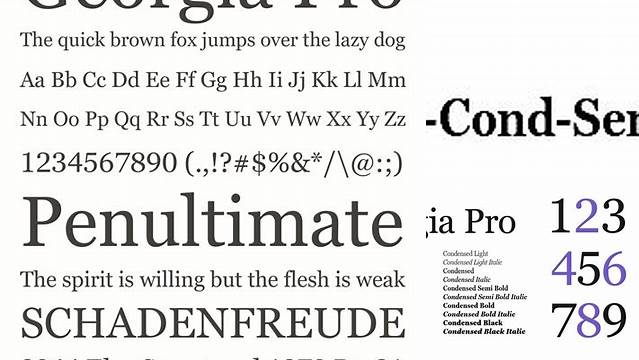
Georgia Pro Semibold Font: An Overview
Alright, let's kick things off with a quick rundown of Georgia Pro Semibold. This font is a variation of the classic Georgia typeface, known for its readability and elegance. Semibold, as the name suggests, is a bolder weight than the regular Georgia, making it ideal for headings, subheadings, and any text that needs to grab attention. Think of it as the slightly more assertive sibling of the regular Georgia. It maintains the same characteristics that make Georgia a beloved font: clean lines, excellent legibility, and a timeless aesthetic. Georgia Pro Semibold is a versatile font, equally at home in print and on screen. This makes it a fantastic choice for a wide range of projects, from website design to brochures to presentations. The key to using Georgia Pro Semibold successfully is understanding its strengths. It's not a flashy font; it's a workhorse that gets the job done with a touch of sophistication. Its clear letterforms ensure that your message comes through loud and clear, even at smaller sizes. This is especially crucial in today's fast-paced digital world, where users often scan content quickly. So, when you're considering a font for your next project, remember Georgia Pro Semibold. It's a solid choice that delivers both style and substance. This font family boasts a comprehensive character set, including support for various languages. With its sturdy design, it’s well-suited for conveying both important information and creative text. Its versatility extends to various platforms, ensuring your text looks consistent and professional, regardless of the device used. The font's design allows it to be effortlessly readable even on screens with low resolution, ensuring the text remains legible and engaging, which contributes to an improved overall user experience. Its suitability extends beyond the digital realm, making it a reliable choice for print media. Its adaptability makes it a top choice for a wide range of applications, enhancing both the readability and visual appeal of any design project.
Characteristics of Georgia Pro Semibold
The character of Georgia Pro Semibold is rooted in its blend of practicality and elegance. The boldness of the font is a significant characteristic; it immediately captures attention while maintaining clarity. This makes it exceptionally suited for headlines, titles, and any text elements that demand prominence. Its readability is another key strength, which remains exceptionally high even when used at smaller sizes. The design of its letterforms prioritizes visual clarity, making it an outstanding choice for lengthy text passages, providing an easy reading experience on any medium. Georgia Pro Semibold carries a touch of classic charm, reminiscent of serif fonts from the past. This timeless appeal makes it suitable for projects that require a professional look. Furthermore, it possesses excellent legibility across various digital and print media, retaining its clarity in both web design and physical materials. It supports a wide range of characters, including accents and symbols, making it adaptable for international projects. Its adaptability means it fits perfectly in diverse design situations, making it a dependable choice for graphic designers. Georgia Pro Semibold presents a dependable blend of visual appeal and functionality, marking it as a standout font choice for anyone aiming to establish a strong and professional visual presence. Its design and features allow it to serve multiple roles in graphic design, website design, and other creative projects. It has an innate ability to convey important details in a clear and appealing way.
Georgia Pro Semibold in Web Design: Best Practices
Georgia Pro Semibold can be a fantastic choice for web design. Its readability makes it perfect for body text, headlines, and subheadings. However, there are a few best practices to keep in mind. First, consider the font size and line height. Ensure that the text is large enough to read comfortably on various devices. A line height that’s slightly wider than the font size will improve readability. Experiment to find the perfect balance. Second, think about the overall design. Georgia Pro Semibold pairs well with clean and modern design aesthetics. Avoid using it in busy layouts that might distract from the text. Also, consider font pairing. It can be a great match for your site. Finally, make sure to optimize the font for web use. Use web font formats like WOFF and WOFF2 to ensure the font loads quickly. The right font will help your content stand out, delivering a user-friendly experience. You must create a harmonious visual environment that enhances user engagement. Proper font selection ensures that your content is displayed correctly across different devices and platforms. It is a key element in creating professional-looking and accessible websites. Therefore, using Georgia Pro Semibold correctly is a must.
Georgia Pro Semibold and Print Design: Tips and Tricks
Georgia Pro Semibold is also a great choice for print design. Its clarity and boldness make it an excellent option for various print materials, from brochures and flyers to posters and magazines. When using Georgia Pro Semibold in print, you'll want to consider a few things. First, the font size is crucial. Choose a size that’s easy to read at the intended viewing distance. For body text, a size of 10-12 points is usually sufficient. For headlines, use a larger size to grab attention. Second, pay attention to the leading (line spacing). Adequate leading improves readability. It prevents text from appearing cramped. Third, consider the color of the text and the background. High contrast between the text and the background makes the text easier to read. Ensure the font works well in the context of your layout and the overall brand identity. This font is a great choice for print projects. When using the font in print, carefully consider the size, leading, and color to create a well-designed, readable product.
Georgia Pro Semibold vs. Alternatives: A Comparison
While Georgia Pro Semibold is a superb font, it's always helpful to understand how it stacks up against its alternatives. Several other fonts offer similar characteristics. Let's explore a few examples: First, there's the original Georgia. It's a great choice if you want a slightly lighter and more delicate look. Then, there's Times New Roman, a classic serif font that is a versatile option for body text. Consider Roboto, a sans-serif font known for its excellent readability and modern look. Both of these are well suited for a variety of design projects. In terms of web design, consider fonts optimized for screen readability such as Open Sans or Lato. These fonts offer a modern aesthetic and are extremely readable. Georgia Pro Semibold has a unique combination of elegance and readability, but the best choice will depend on the design's specific needs and the overall aesthetic.